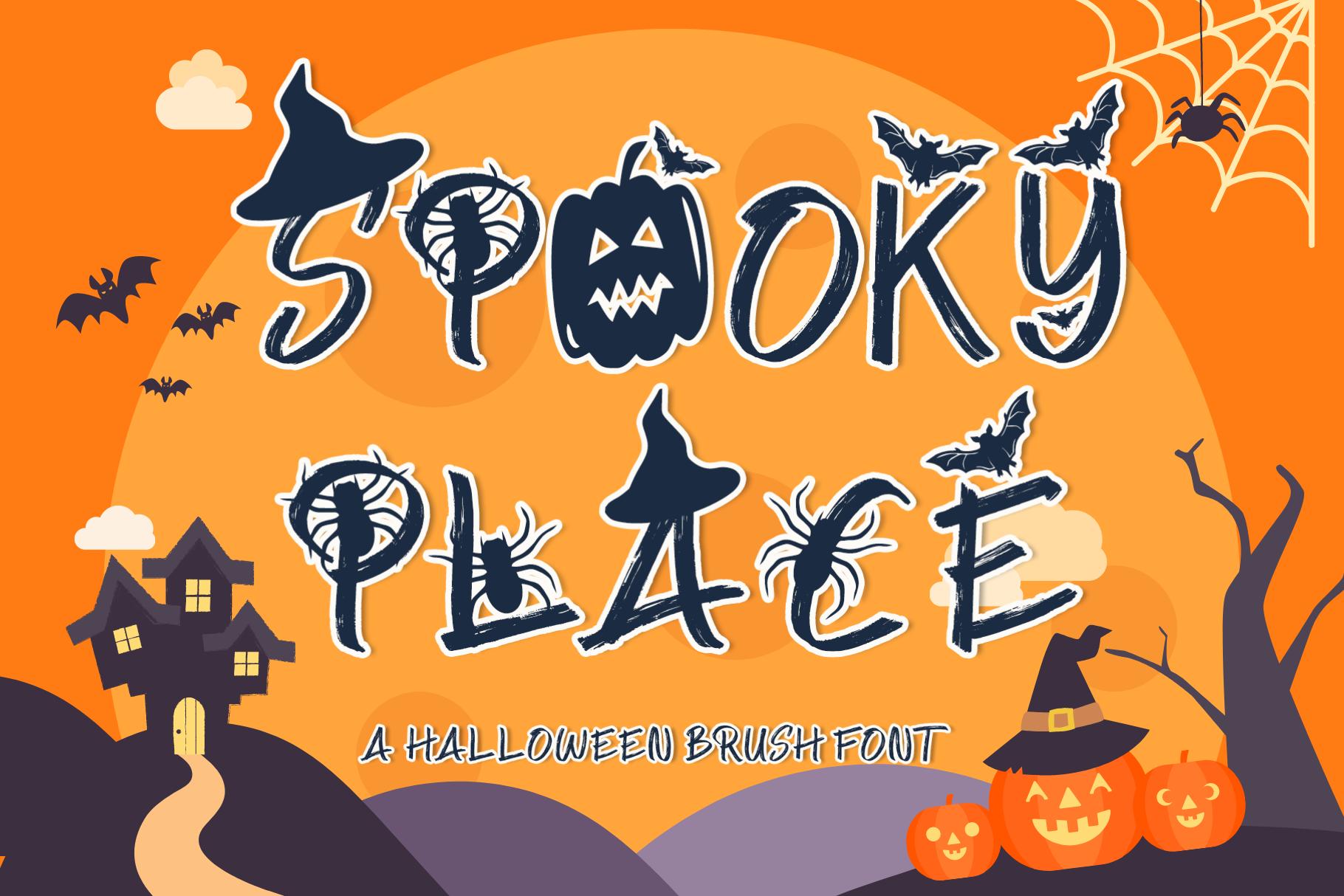
Spooky Place Font Description
Spooky Place is a cool and quirky display font. This font is PUA encoded which means you can access all of the glyphs and swashes with ease! Add it confidently to your favorite creations and let yourself be amazed by the outcome generated.